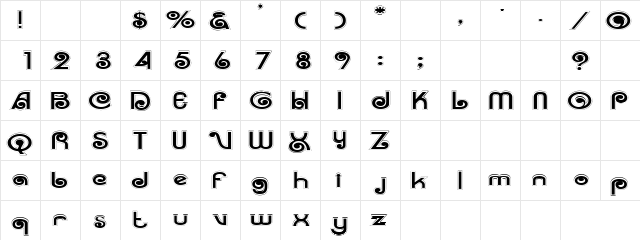
Die Hard Regular
Design Context for Die Hard Typeface
Die Hard is a composed and adaptable typeface that performs quietly and consistently across a wide range of design contexts.